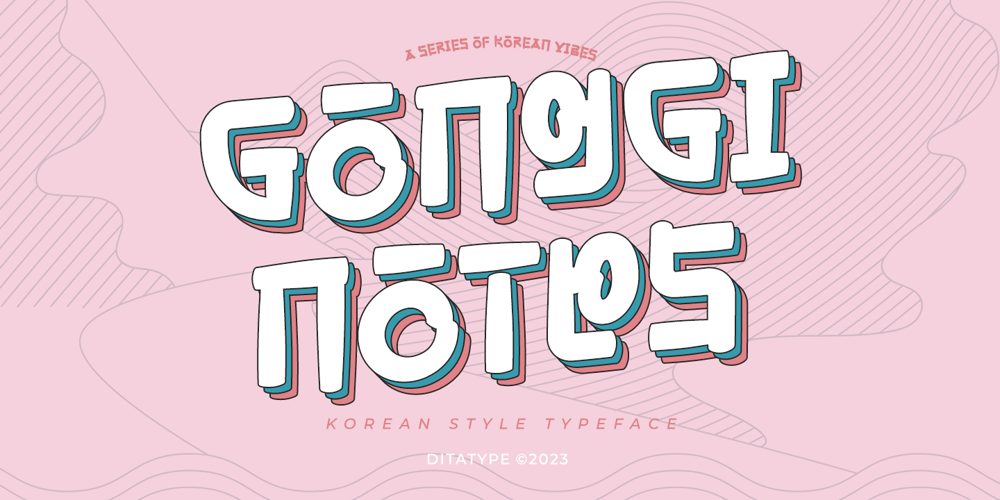
Gonggi Notes Font Family was designed by Donis Miftahudin and published by Ditatype. Gonggi Notes contains 1 styles and family package options. Gonggi Notes is an enchanting display font that splendidly encapsulates the charm of Korean typography with a modern twist. This unique typeface draws its inspiration from the playful and rounded forms found in traditional Korean script, reimagined for contemporary use.One of the most distinctive characteristics of Gonggi Notes is its fairly thick letter weight, which gives each character a robust and welcoming presence. This heftiness ensures that the font stands out on any page or screen. Despite its substantial weight, Gonggi Notes maintains a delightful roundness in its letter shapes. This design choice softens the overall appearance of the typeface, lending it a friendly and approachable quality. The rounded contours also echo the organic shapes found in natural Korean landscapes and art, bringing a touch of cultural authenticity to the font. In addition, enjoy the features here.Features: Alternates Multilingual Supports PUA Encoded Numerals and PunctuationsUppercase Gonggi Notes fits in headlines, logos, posters, flyers, branding materials, greeting cards, print media, editorial layouts, and many more designs. Find out more ways to use this font by taking a look at the font preview.Thanks for purchasing our fonts. Hopefully, you have a great time using our font. Feel free to contact us anytime for further information or when you have trouble with the font. Thanks a lot and happy designing.